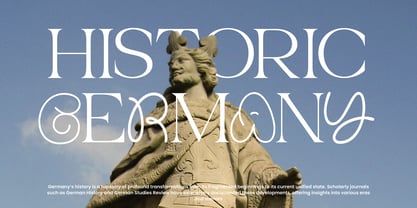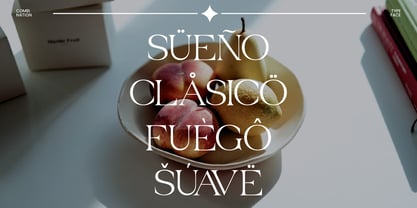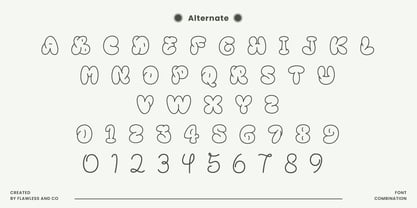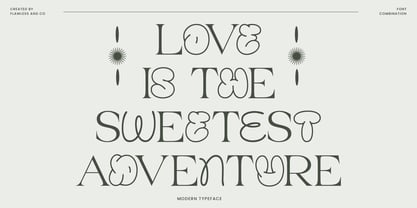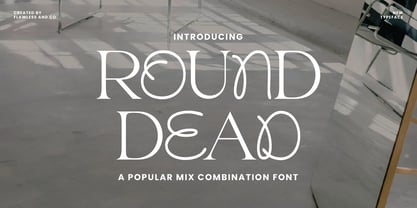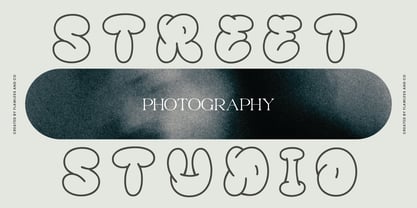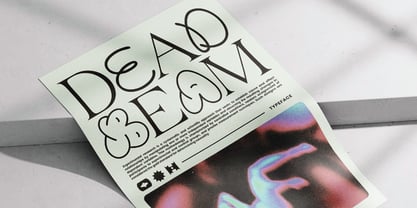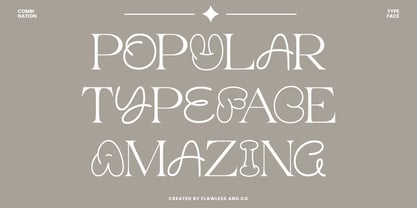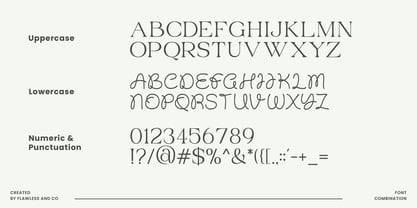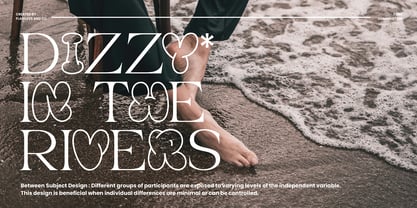
Round Dead
The Round Dead Font Family was designed by Achmad Yani and published by Flawlessandco. Round Dead contains 1 styles. More about this family
Round Dead is a retro groovy serif font that channels playful charm and vintage attitude in every curve. Inspired by bold 70s aesthetics with a modern pop culture twist, Round Dead features soft rounded edges, chunky letterforms, and a smooth rhythm that brings personality to any layout—making it perfect for attention-grabbing designs like album covers, party posters, merch graphics, branding for fun-forward businesses, and social media content. Each letter is crafted to be both approachable and striking, delivering a friendly, upbeat tone with retro soul.
Features :
Multilingual, Uppercase alphabet A-Z, Lowercase alphabet a-z, Numbers 0-9, Some punctuation, Alternates & Ligatures